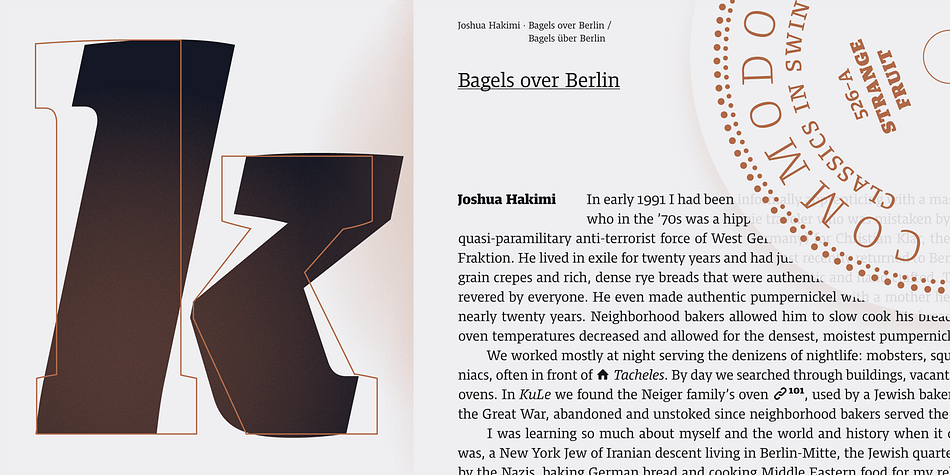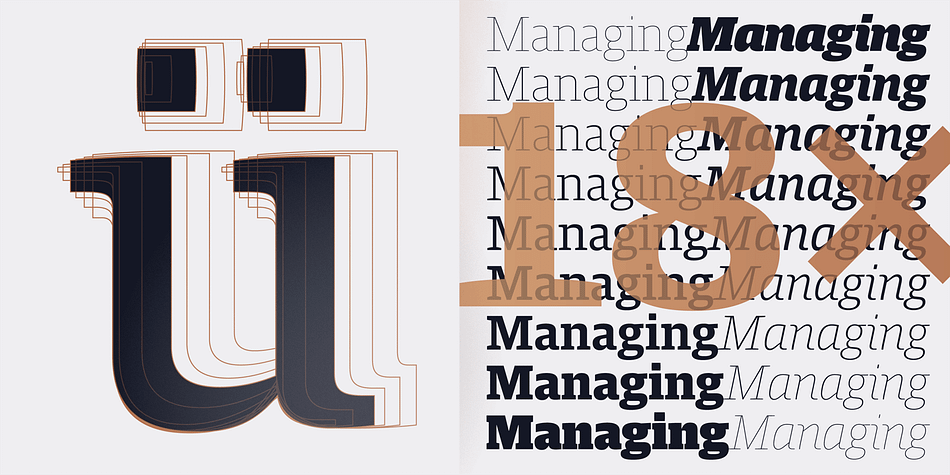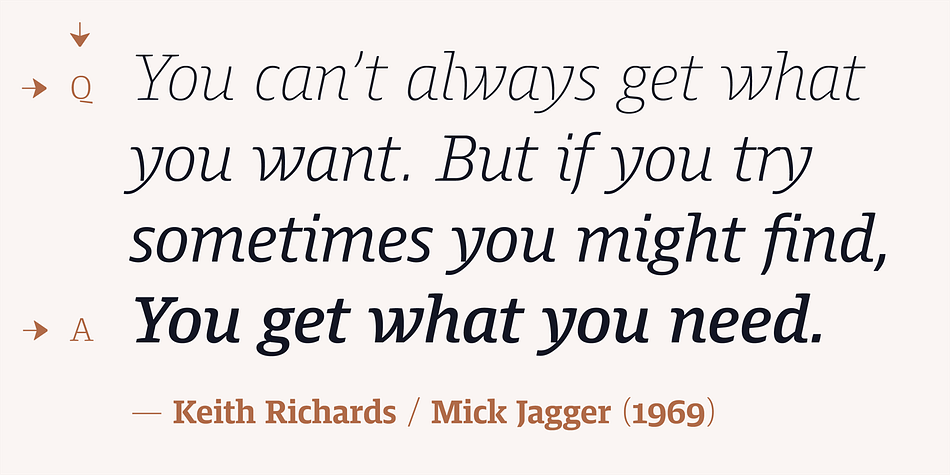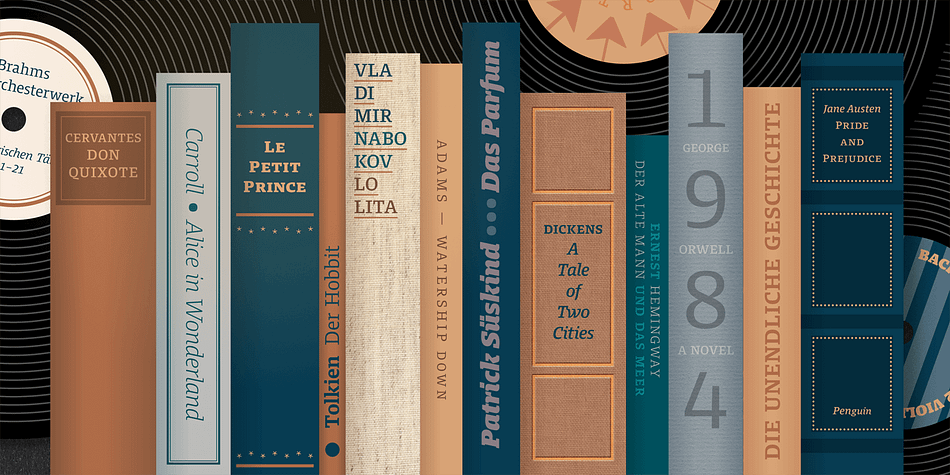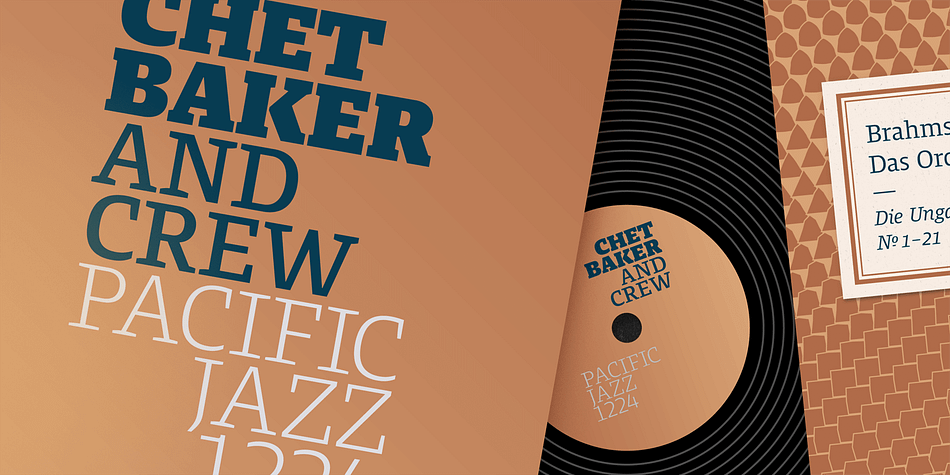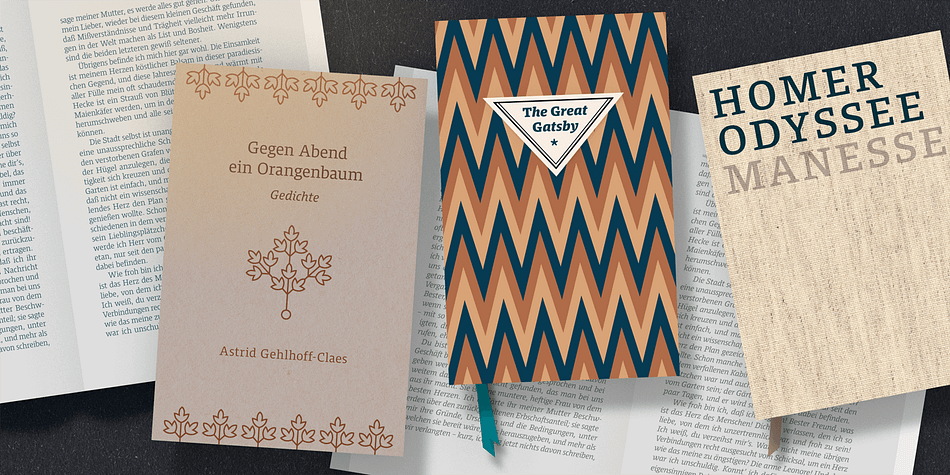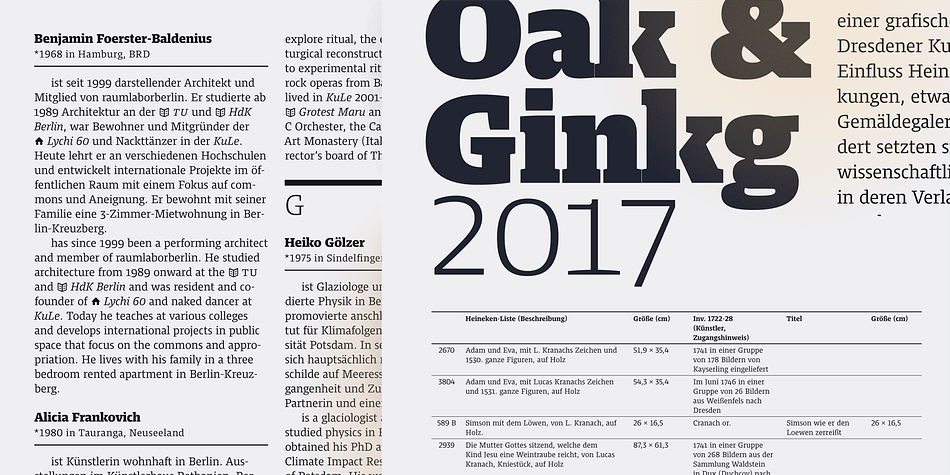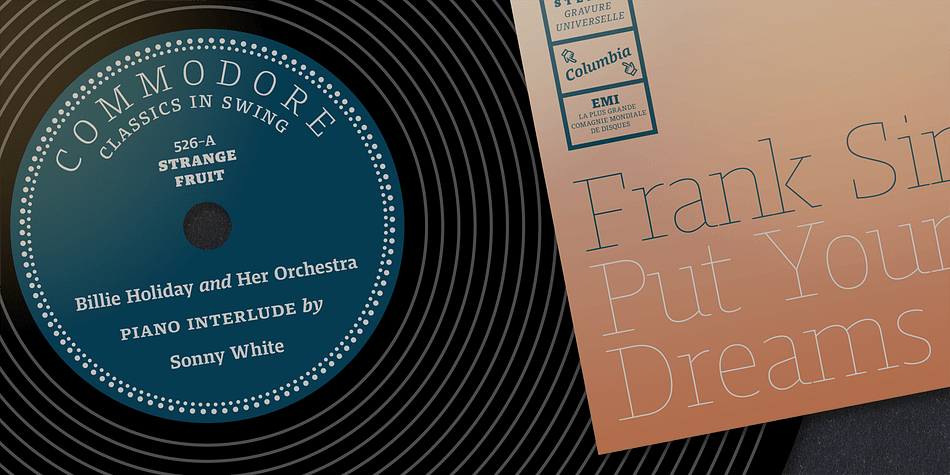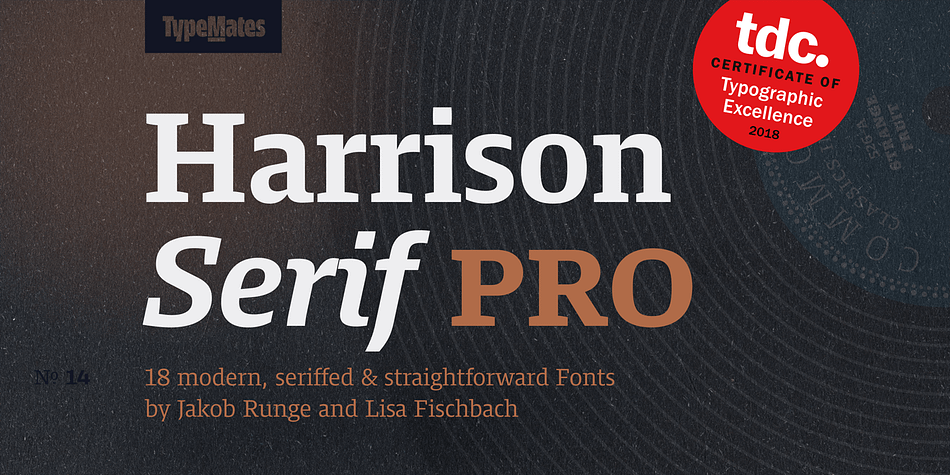
Designed by Jakob Runge, Harrison Serif Pro is a slab serif font family. This typeface has eighteen styles and was published by TypeMates.
Harrison Serif Pro is a sturdy yet contrasted slab serif that combines a rational and efficient approach with a warm voice. A typeface of nuances, the slightly carved and occasionally extended serifs evoke the friendly side of Harrison Serif and contrast with the straightforward nature of the typeface’s squarish curves, open counters and horizontal emphasis.x
Harrison was drawn for long form reading on screens and user interfaces, but the typeface’s more refined details come alive in high-resolution media and print. The almost mechanical vertical terminals, open counters and modest capitals combine with Harrison’s generous x-height to ensure the typeface holds up on screen. With improved ClearType hinting and a sturdy physique, no medium is a worry for this serif typeface.
Harrison Serif’s broad range of weights means that it’s more than a just a simple text face. From sheer Hairline to deep, dark Ultra, its weight spectrum is divided into nine distinct styles — leaving no need unfulfilled for editorial designers.
Further, Harrison explores nuance in its italics. Something between true italics and obliques, they range from the cursive to the playful, from the expressive to letters with the sobriety of unpretentious slanted obliques.
Of course Harrison provides all the OpenType features needed for ambitious typography: as well as a variety of figure styles, there small caps and the capitals-to-small caps feature. And you can have no doubt that it contains broad Latin language support and a set of helpful symbols.
Selected for a Certificate of Typographic Excellence by the Type Directors Club in 2018.